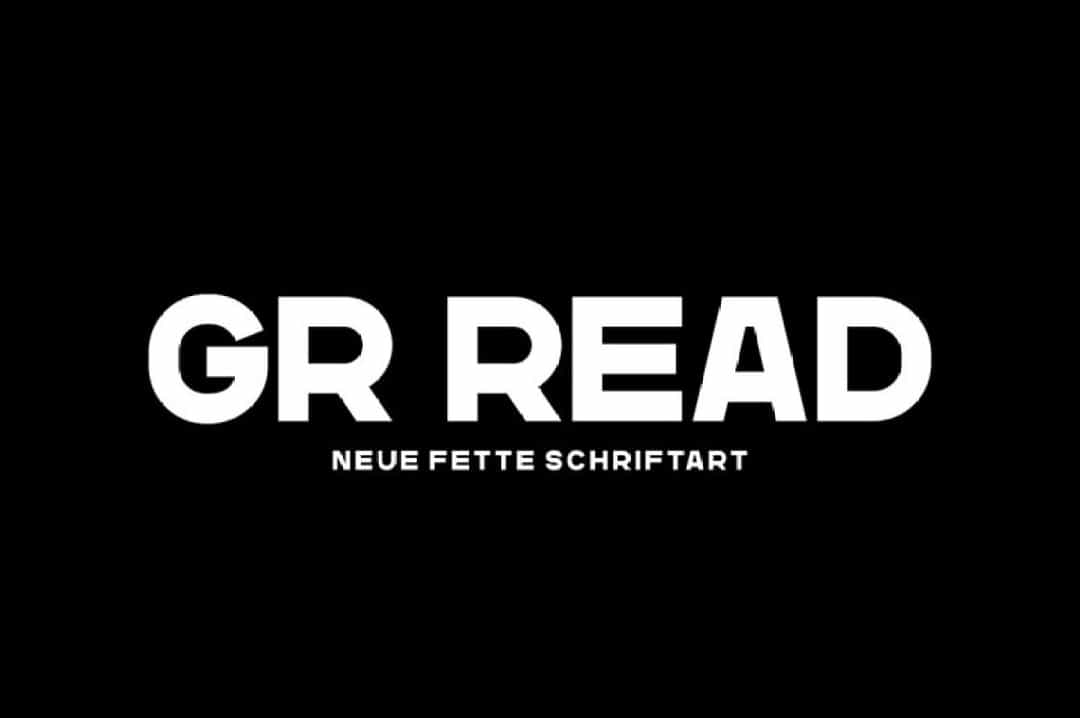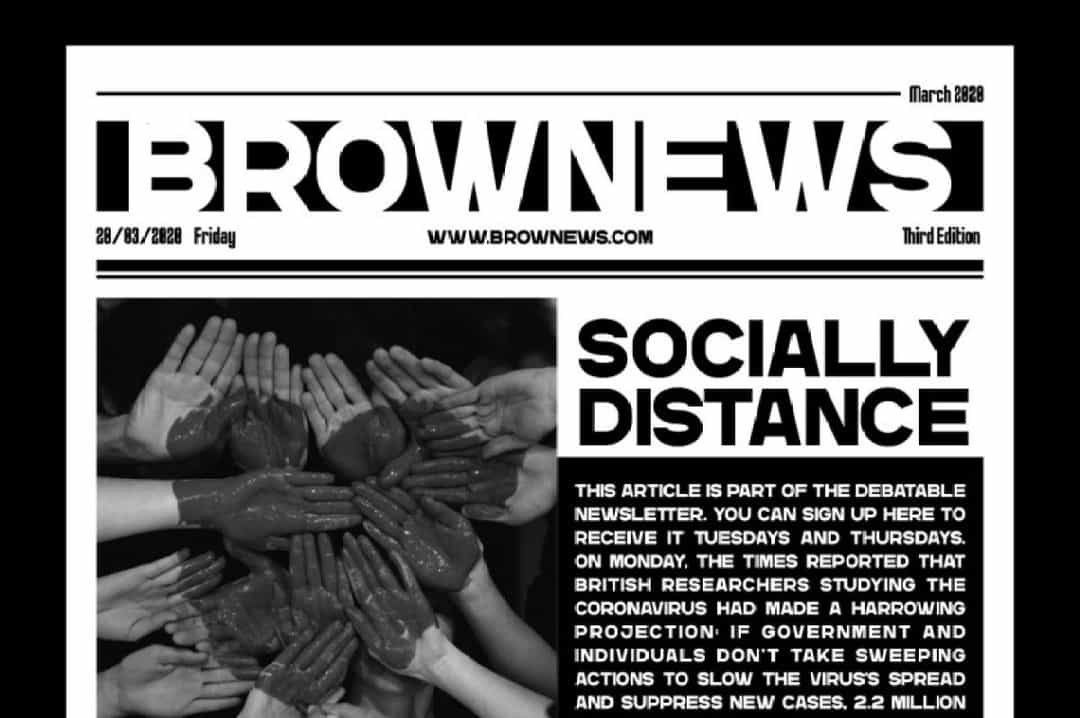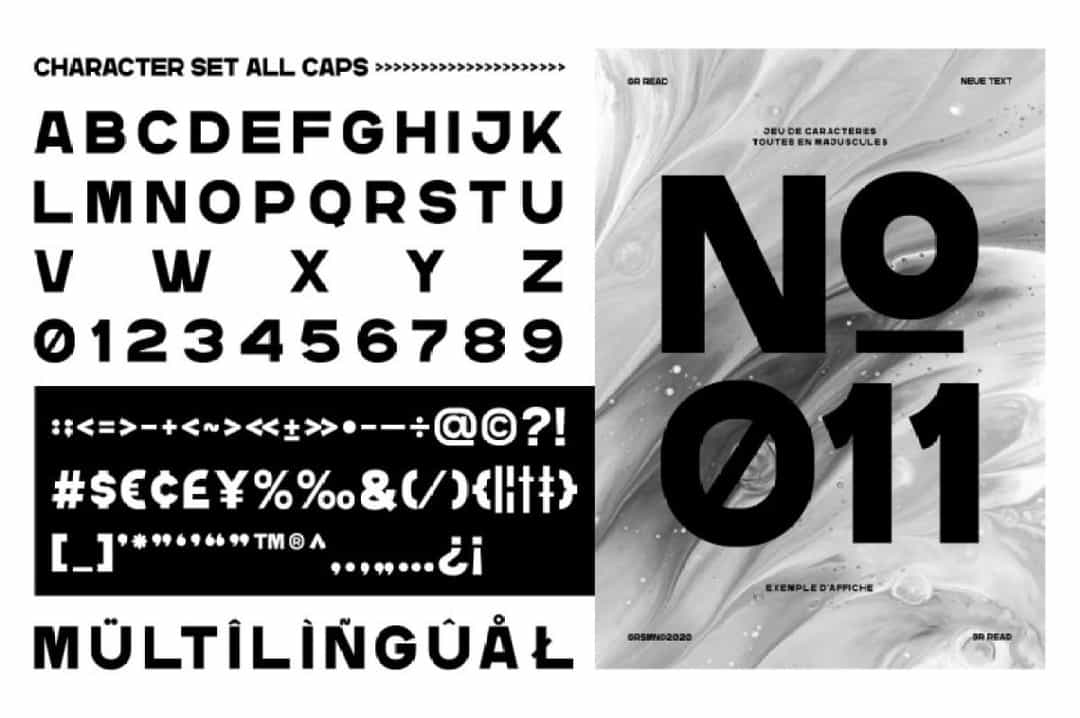
Discover GR Read Font, part of the Sans Serif Display collection—a versatile and unique font perfect for adding a personal touch to your projects. Download it for free and enjoy crafting designs with style, from invitations to social media posts. This font is available exclusively for personal use, giving you the freedom to create without limits. Unlock your creativity with GR Read Font today!
GR Read is an elegant and stylish sans typeface that is already matched and ready to use to create your next project! It’s a font created by the design studio Garisman Studio. This is a attractive font for headline designs that have a bold and striking theme.